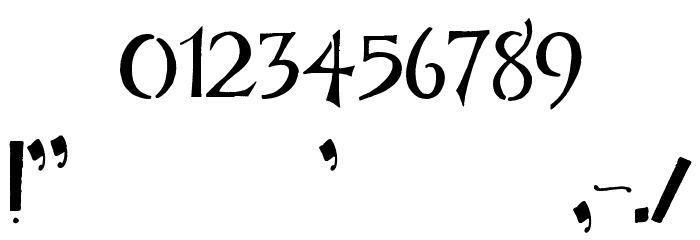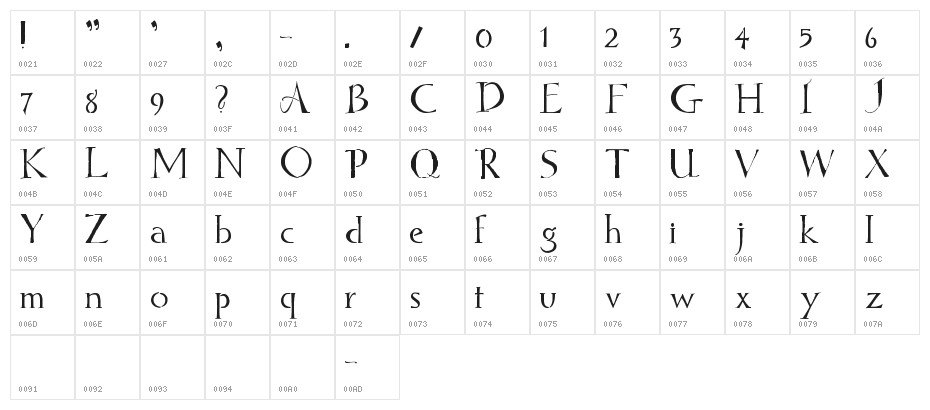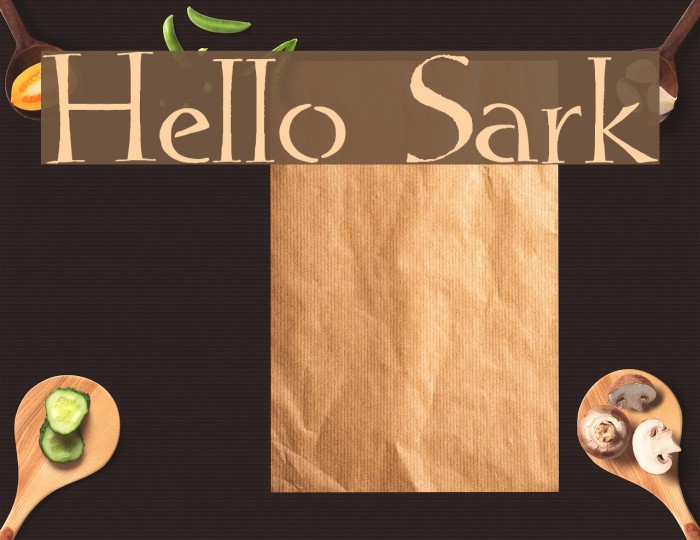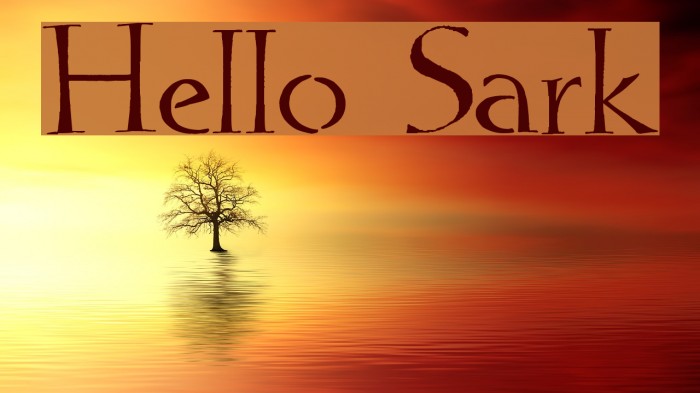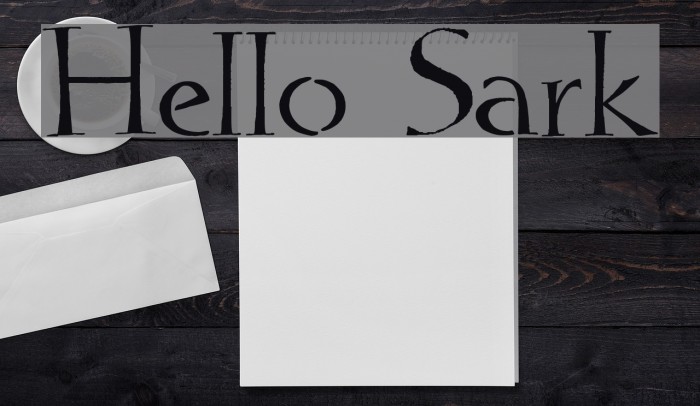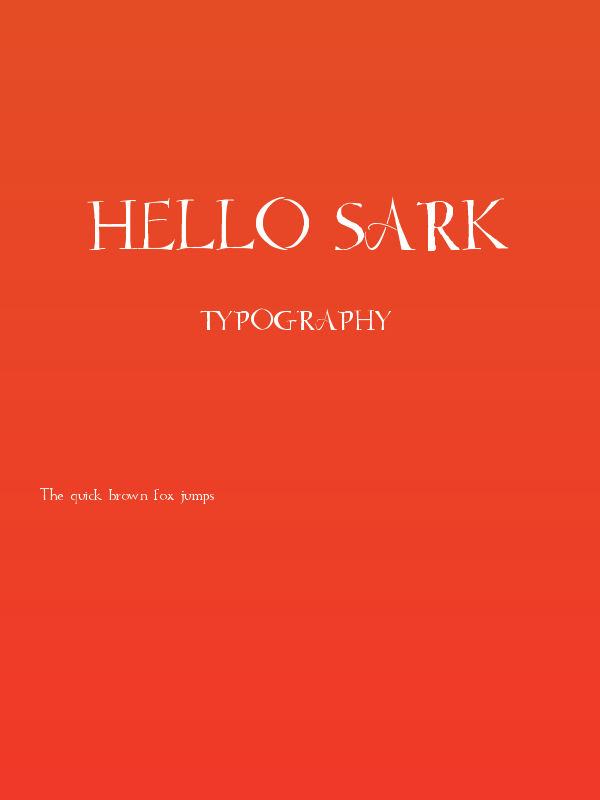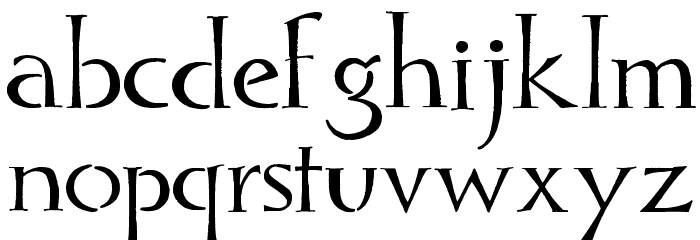
This font features a distinctive and artistic style, characterized by its elegant and slightly whimsical design. The uppercase letters have a unique flair, with some strokes extending beyond the baseline, adding a touch of creativity and movement. The lowercase letters maintain a consistent style, with smooth curves and a balanced appearance. The numerals are designed with a similar artistic touch, ensuring cohesion across all characters. The special characters complement the overall aesthetic, making this font suitable for creative and decorative purposes.
| Overall Style | Artistic |
| Proposed Projects | Ideal for creative projects such as invitations, posters, branding, and artistic designs. |